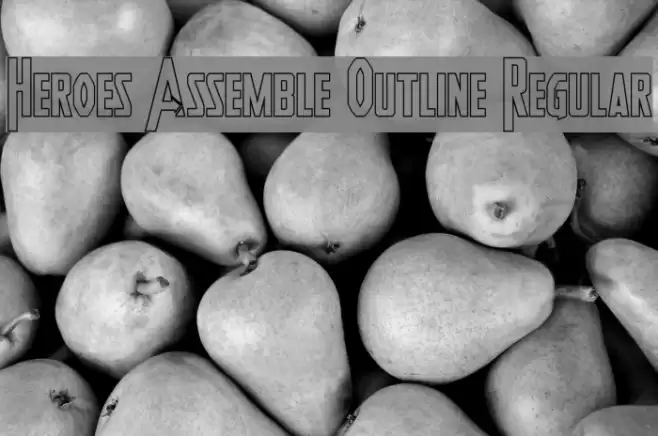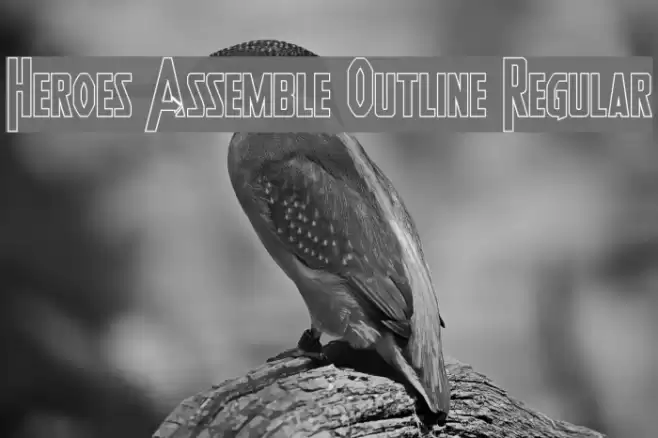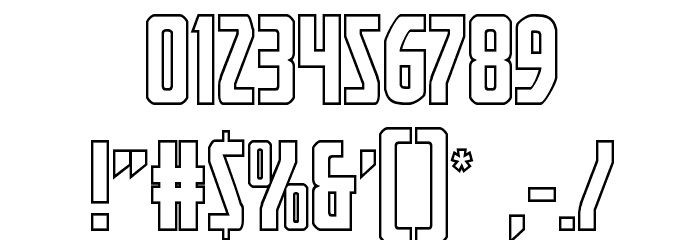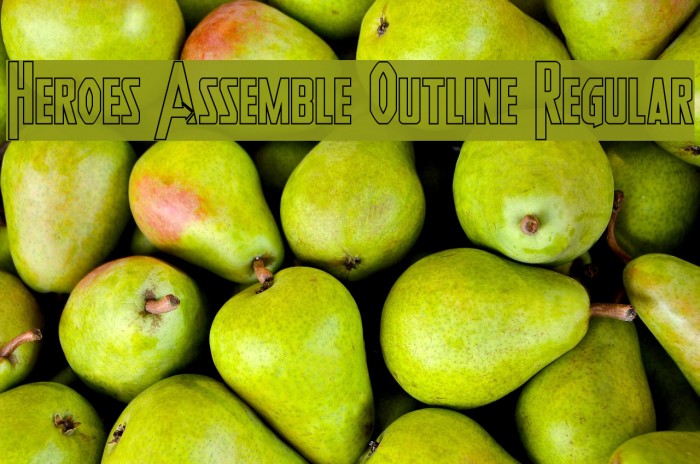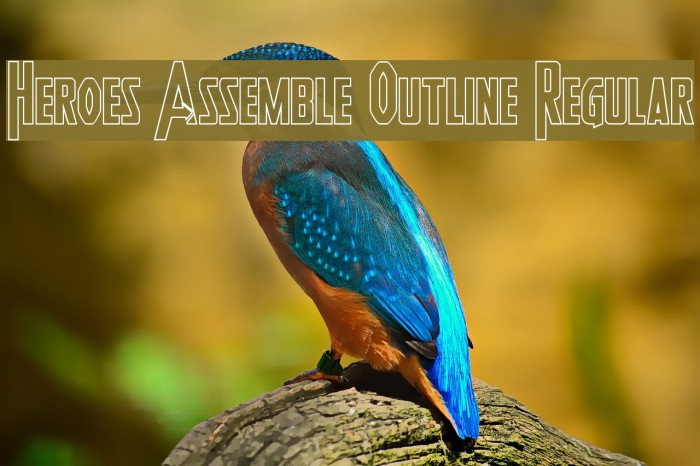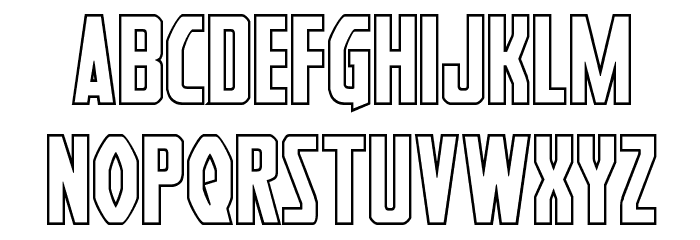
Heroes Assemble Outline Regular Font
Heroes Assemble Outline Regular Description
This font features a bold, outlined style that exudes a sense of strength and modernity. The uppercase letters are designed with a strong geometric structure, giving them a powerful and commanding presence. The outlines are consistent and sharp, creating a striking visual impact. The numbers and special characters maintain the same bold outline style, ensuring uniformity across all characters. This font is perfect for projects that require a bold statement, such as posters, headlines, or branding materials. Its unique outline design makes it stand out, while still being legible and versatile.
A bold, outlined font with a strong geometric structure, perfect for impactful designs from Uncategorized fonts.
- Proposed Projects: Ideal for posters, headlines, branding, and any project needing a bold, modern look.